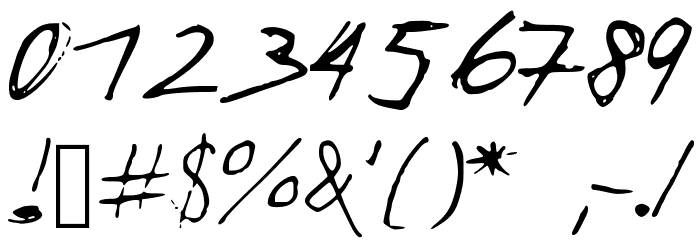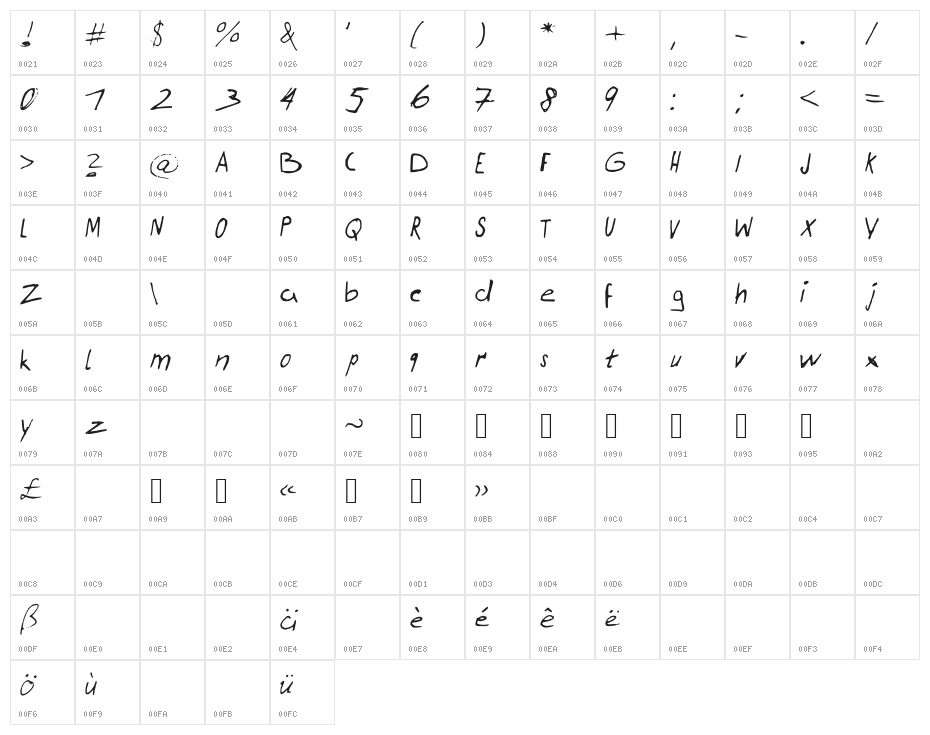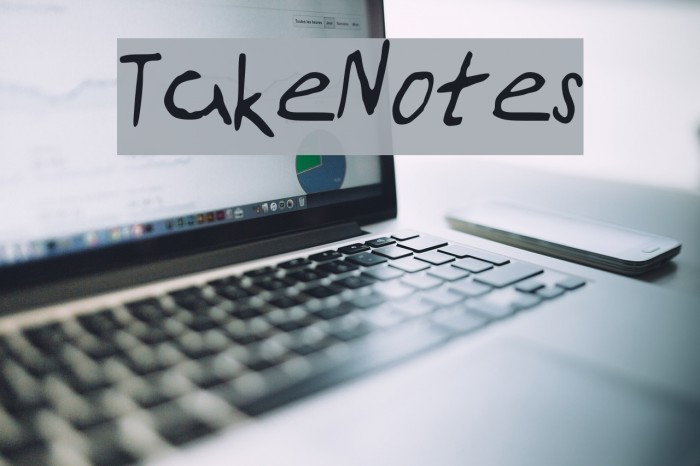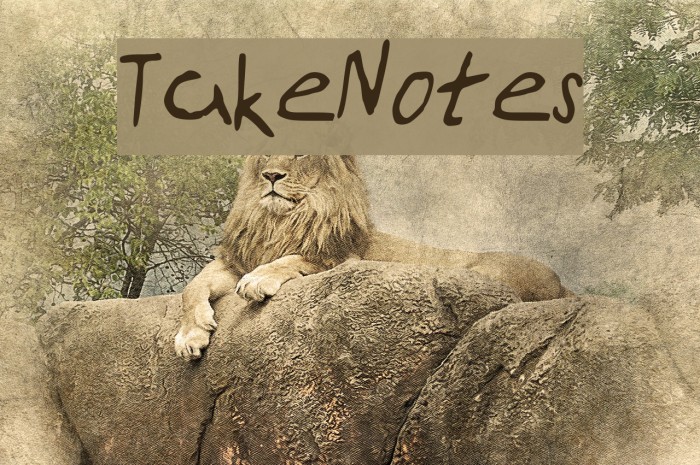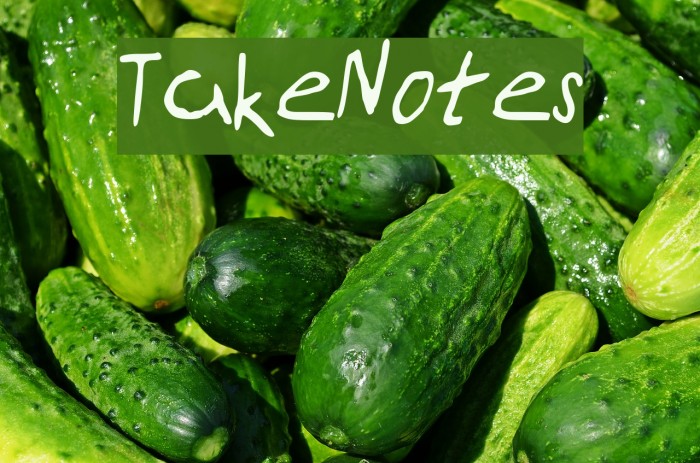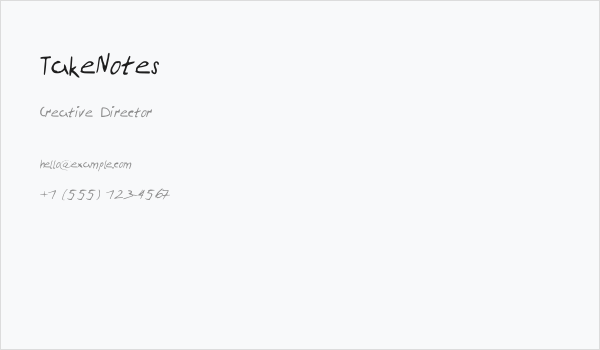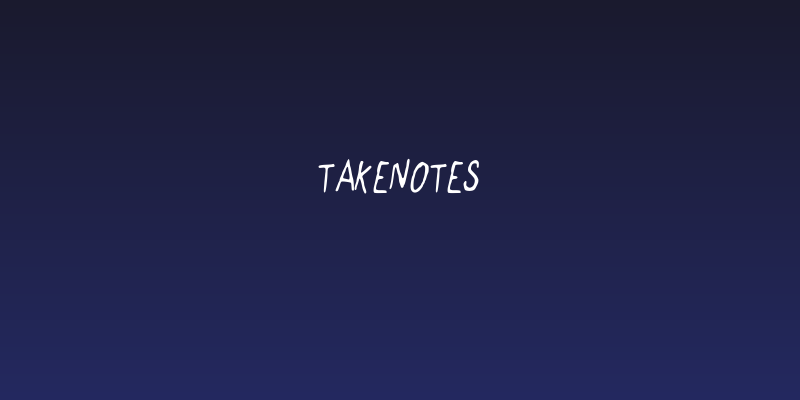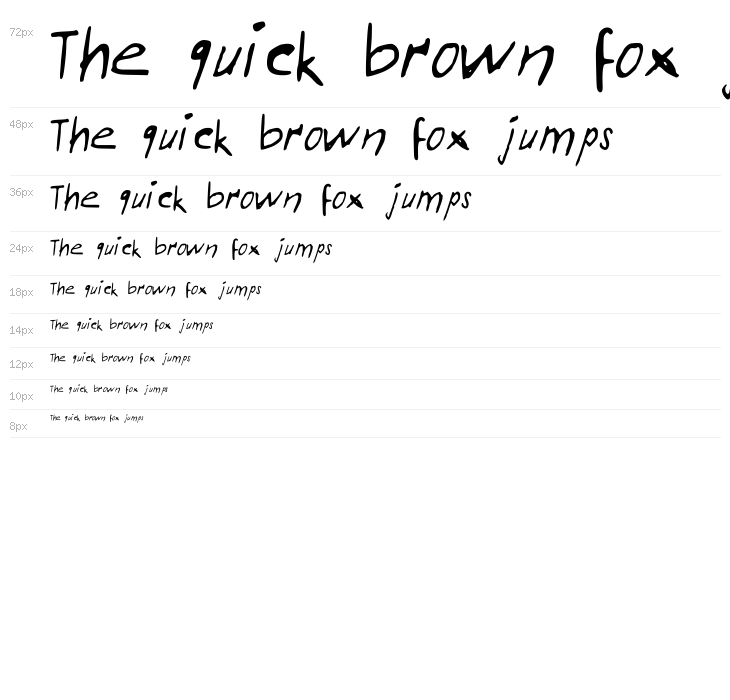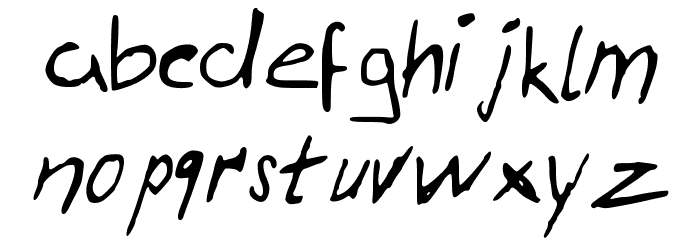
TakeNotes Font
TakeNotes Description
This font exudes a casual, handwritten style, reminiscent of quick notes jotted down with a marker. The letters are slightly irregular, giving it an authentic, personal touch. The strokes are bold and varied, with a playful, energetic vibe. The uppercase letters are tall and slightly slanted, while the lowercase letters maintain a consistent flow, enhancing readability. Numbers and special characters follow the same informal style, making them blend seamlessly with the alphabet. This font is perfect for projects that require a personal, approachable feel.
| Overall Style | Casual, Playful |
| Use Case | Headlines, Informal text, Creative projects |
| Proposed Projects | Ideal for personal notes, casual invitations, creative posters, and social media graphics. |